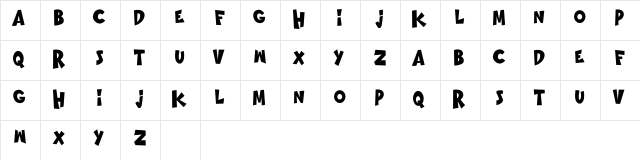
BROMO Regular
Design Context for BROMO Typeface
BROMO is a composed and adaptable typeface that performs quietly and consistently across a wide range of design contexts.